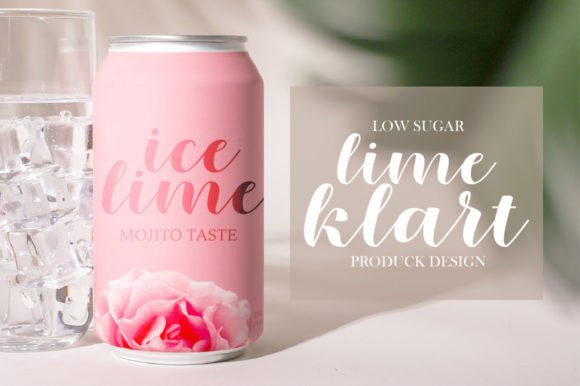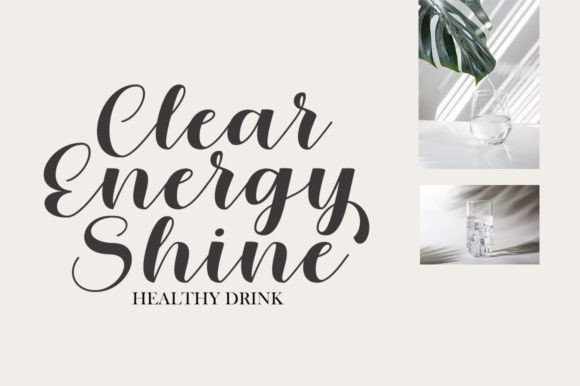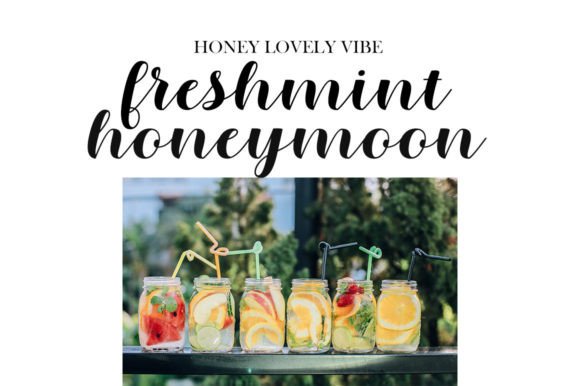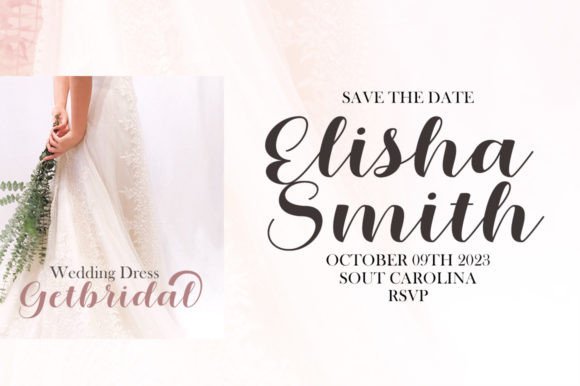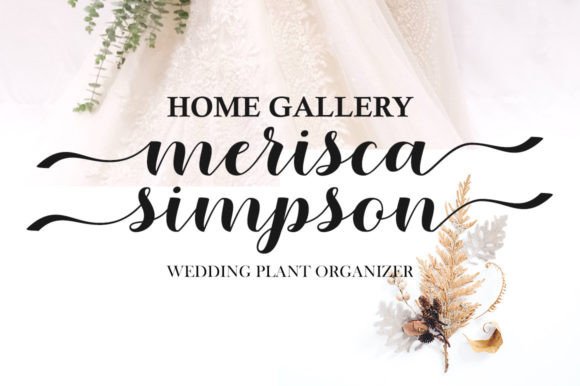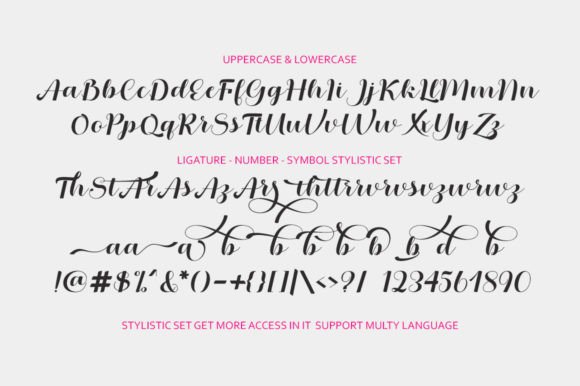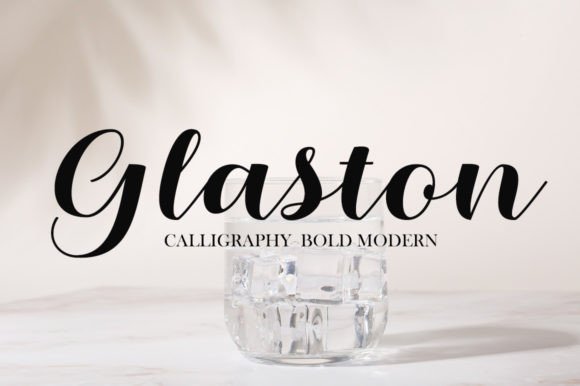
Introducing Glaston Font: Elevate Your Designs with Elegance and Sophistication
Hello friends! We are thrilled to introduce our latest creation, the Glaston Font. This stunning new font combines the warmth of handwriting with the elegance of script style, making it perfect for designers and crafters looking to add a touch of sophistication to their work.
What Makes Glaston Font Special?
Glaston Font boasts a unique, natural look that sets it apart from other fonts. Its handwriting and script style give it an organic feel, making it ideal for designs that require a personal touch. Whether you’re working on invitations, logos, branding, photography, advertising, watermarks, social media posts, product packaging, product designs, labels, wedding designs, stationery, or special events, Glaston Font is the perfect choice.
Key Features of Glaston Font
- Multilingual Support: Glaston Font includes multilingual support, allowing you to create designs in various languages. This feature makes it an excellent choice for designers who work with international clients or want to create designs for a global audience.
Use Cases for Glaston Font
Glaston’s versatility makes it suitable for a wide range of design projects. Here are some ideas to get you started:
- Invitations: Create beautiful wedding invitations, birthday party invites, or any other type of invitation that requires a personal touch.
- Logos & Branding: Use Glaston Font to create a unique logo or brand identity that stands out from the crowd.
- Photography: Add a touch of elegance to your photography with Glaston Font. Use it for watermarks, captions, or even photo titles.
- Advertising: Create eye-catching ads with Glaston Font. Its stylish look makes it perfect for print or digital ads.
- Social Media Posts: Elevate your social media game with Glaston Font. Use it to create engaging posts, stories, or even social media graphics.
- Product Packaging: Add a personal touch to your product packaging with Glaston Font. Make your products stand out on store shelves.
- Labels: Create beautiful labels for your products or gifts with Glaston Font.
- Wedding Designs: Use Glaston Font to create stunning wedding designs, such as wedding stationery, programs, or place cards.
- Stationery: Create elegant stationery, including notecards, journals, or letterheads, with Glaston Font.
Why Choose Glaston Font?
Glaston Font offers a unique combination of elegance, sophistication, and versatility. Its handwriting and script style make it perfect for designers and crafters who want to add a personal touch to their work. With its multilingual support and compatibility with various design software, Glaston Font is an excellent choice for anyone looking to elevate their designs.